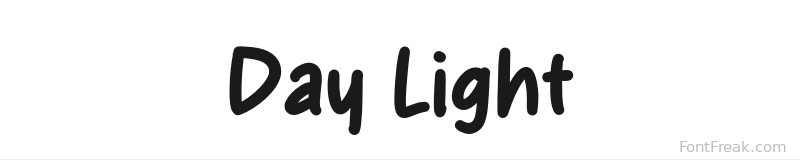
Day Light
About Day Light
The Day Light font by MJType is an engaging display typeface that effortlessly combines a playful yet modern aesthetic. This font falls into the category of handwritten styles, characterized by its fluid strokes and informal charm. The stroke weight is consistent, providing a balanced appearance, while the slightly varied contrast adds a lively touch, enhancing its inviting nature. The spacing is generous, allowing for easy readability, which is crucial for various design applications.
Day Light is perfect for an array of specific use cases, such as creating vibrant wedding invitations that evoke a sense of joy and celebration, or designing eye-catching movie posters that capture the essence of fun and adventure. Additionally, this font works beautifully for restaurant menus, where a warm and welcoming vibe is essential, as well as for social media graphics aimed at engaging a younger audience. Graphic designers and content creators will find it particularly appealing for branding projects that require a personal touch, making it a versatile choice for small business owners looking to create a memorable identity.
The target audience for Day Light includes graphic designers seeking unique typographic elements, small business owners wanting to captivate their customers, and content creators aiming for a friendly and approachable look in their work.
What sets the Day Light font apart is its ability to convey a sense of warmth and positivity while remaining highly versatile. Its handwritten style allows it to stand out in a crowded market, making it an excellent choice for any project that requires a personal and inviting touch. With a Day Light font free download available, users can easily incorporate this delightful typeface into their designs and elevate their creative projects.